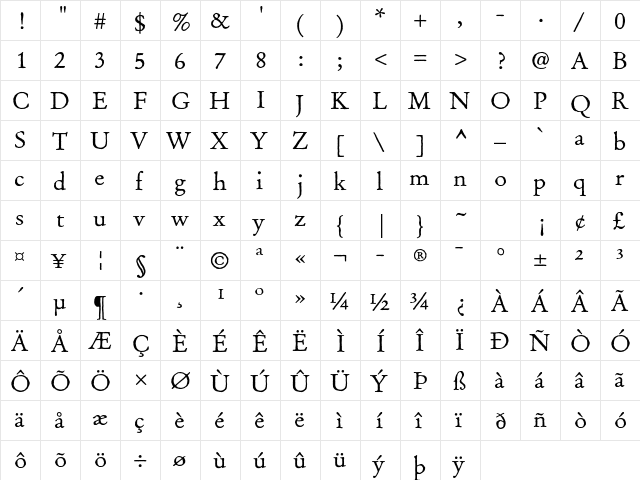
Old Claude LP Std Regular
| Designer | Paul Shaw |
Design Context for Old Claude LP Std Typeface
Old Claude LP Std is a composed and adaptable typeface that performs quietly and consistently across a wide range of design contexts.